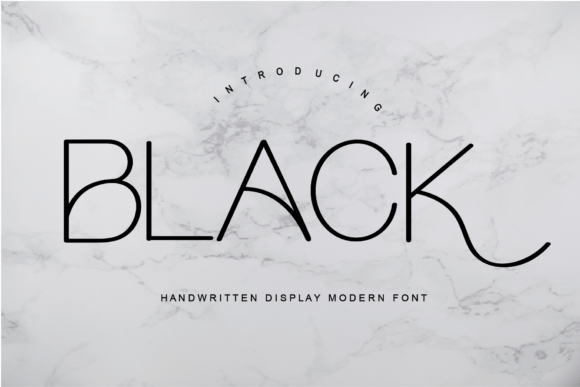
The Power of Black Font: Elevate Your Designs with Modern Elegance
I’ll never forget the time I was working on a branding project for a trendy boutique hotel. I had spent hours agonizing over the perfect color palette and logo design, but something was still off. That’s when I realized the font I was using was all wrong – it was too bland, too boring. I needed something that would make the text stand out, something with a bit of personality. That’s when I discovered Black Font, and it completely transformed my design.
An Honest Review of Black Font
- ✨ **Modern and rounded**: Black Font has a sleek, contemporary look that’s perfect for designs that need a bit of sophistication.
- ✅ **Slender characters**: The font’s slender characters make it easy to read, even at smaller sizes.
- ✅ **Large ligatures**: The ligatures in Black Font add a touch of elegance to any text, making it perfect for titles, headings, and logos.
- ✨ **Easy to read**: Despite its slender characters, Black Font is incredibly easy to read, making it perfect for body text as well as headings.
While Black Font is an amazing font, it’s not perfect. Here are a few things to keep in mind:
- ⚠️ **Limited use in small sizes**: While Black Font is easy to read, it can get a bit lost in very small sizes (below 10pt). Use it for larger text, like headings and titles.
- 🤔 **Some characters may not work well in all contexts**: As with any font, some characters may not work well in all contexts. For example, the font’s slender characters can make it difficult to read in very long blocks of text.
The Story Behind Black Font
Black Font was designed by a team of typographers who wanted to create a modern, elegant font that would be perfect for designs that need a bit of sophistication. The font’s sleek lines and beautiful ligatures make it perfect for titles, headings, and logos.
| Font Name | Black Font |
| Author | hl_studio |
| What is Black Font? | Black Font is a modern rounded font with slender characters and large ligatures. |